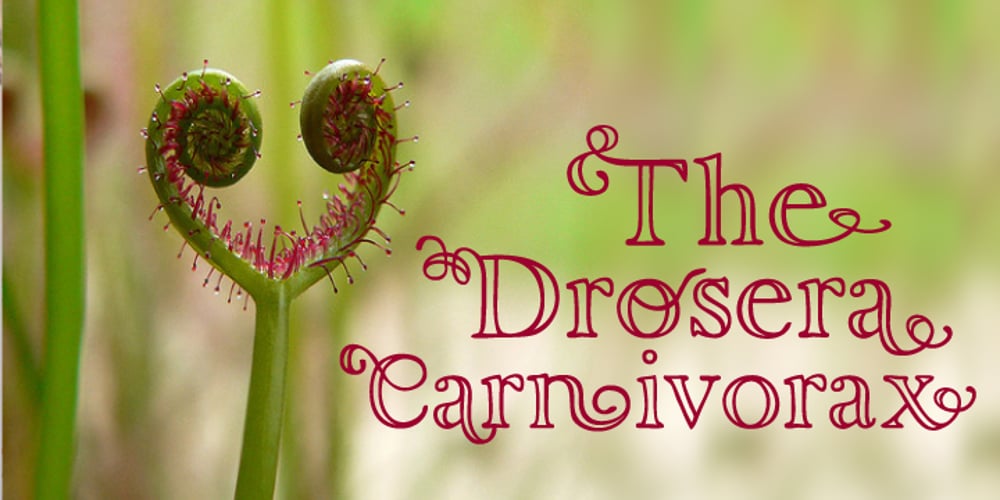
Karty Font Family was designed by Carine de Wandeleer and published by Eurotypo. Karty contains 2 styles and family package options. Karty is an outline freehand typeface that was inspired by John Baskerville’s designs. Karty comes in two version: Outline and Shadow fonts, including a large set of swashes, ligatures and stylistic alternatives, which bring the chance to create logotypes, originals headlines for fashion magazines, children books, advertising and much more.